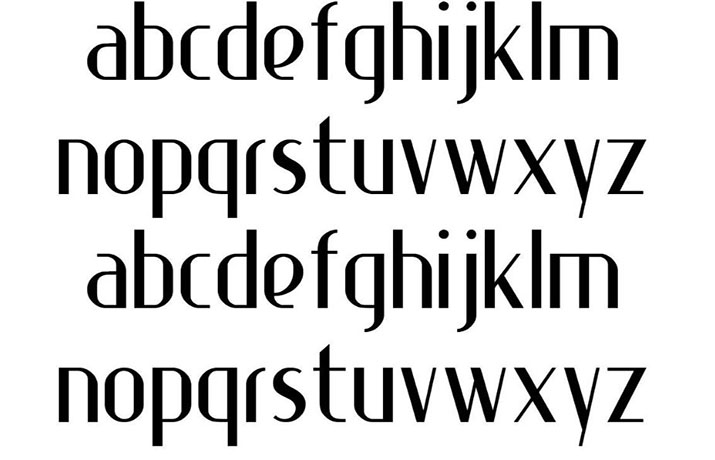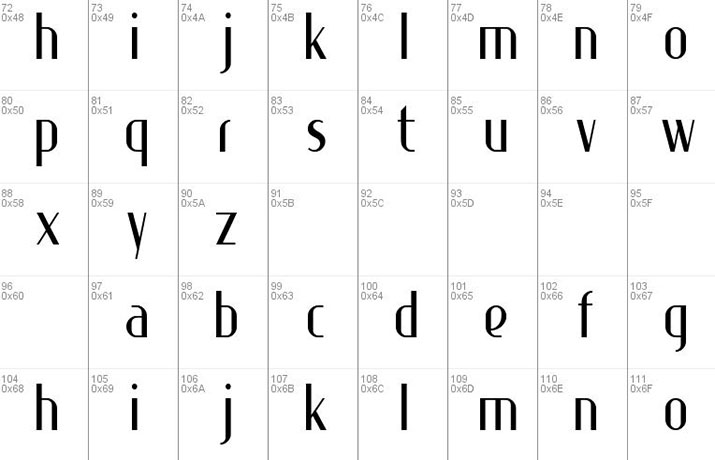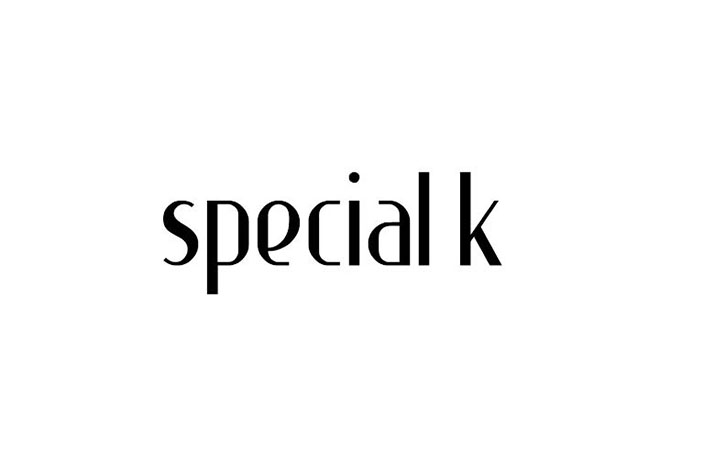
Special K Font is a basic sans serif typeface that has sharp corners and a modern look. It was designed and published by Salvo Nicolosi.
This font family comes in a single weight with TTF format. It includes 236 glyphs, uppercase, lowercase, numbers, and symbols. Moreover, it also supports 64 languages.
Its letters are condensed with clean strokes that can add sophistication to the design. So, this is the reason why this display font helps to create amazing designs that no one has created before.
So try your best to create your stunning design. With its help, you can create book covers, long text paragraphs, t-shirt printing, special quotes, product packaging, special quotes, etc.
Features of This Font:
- Uppercase & lowercase letters, numbers, symbols, and punctuation
- 236 unique glyphs
- 64 multilingual languages support
| Style: | Basic, Sans Serif, Display |
- This modern-looking font is an ideal choice for paragraphs, book covers, long text paragraphs, t-shirt printing, special quotes, book covers, business cards, t-shirt printing, special quotes, product packaging, flyers, social media posters, product packaging, special quotes, and so on.
This font supports 64 languages.